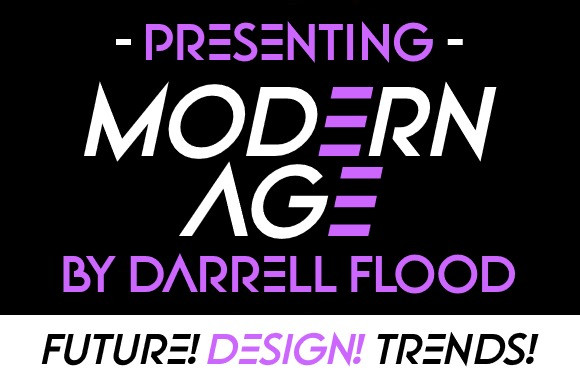
Modern Age Font
Modern Age Font, A slick, modern sans serif that encapsulates many current design trends. Perfect for fashion themes, high-tech themes, and general modern use.